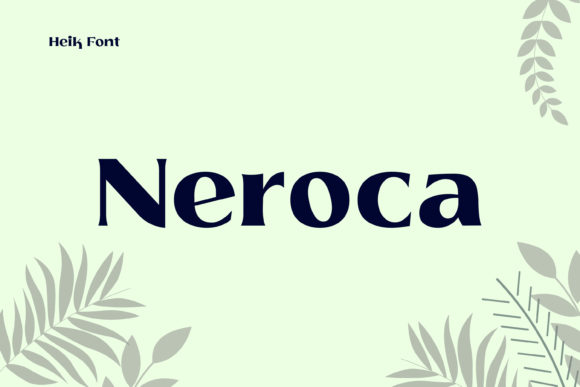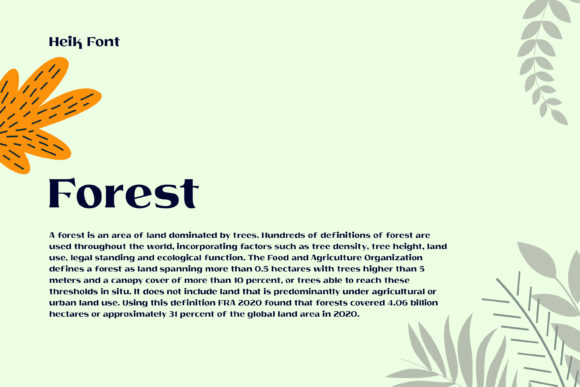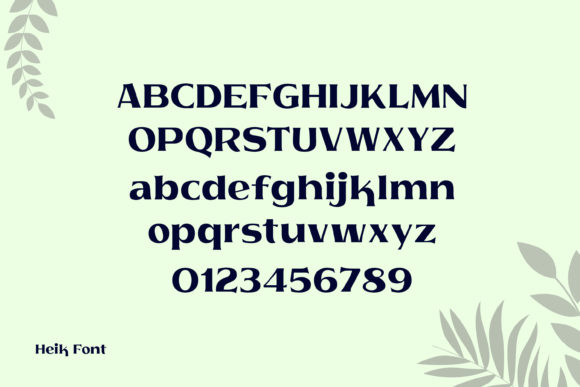
Introduction to Heik Font
Have you ever stared at a blank page, desperately searching for the perfect font to bring your creative project to life? For many designers, this is a familiar struggle. But what if you could unlock a font that not only captures attention but also adds a touch of sophistication to your work? Enter the Heik Font, a modern serif font that’s perfect for making a statement.
With its bold and stylish design, the Heik Font is ideal for a wide range of creative applications, from web designs and business cards to social media graphics and more. Whether you’re a seasoned designer or just starting out, this versatile font is a valuable addition to your design resource library. And the best part? It’s available for a free download, so you can start exploring its possibilities right away.
What sets the Heik Font apart is its high quality design, which features a transparent background that makes it easy to customize and integrate into your projects. So why settle for a generic font when you can elevate your work with the Heik Font? Discover the possibilities of this incredible design resource and take your creative projects to the next level.
Key Features of Heik Font
- Heik Font comes in a single size, but it’s highly scalable, making it suitable for a wide range of applications.
- Unique characteristics include its minimalist and modern design, making it a popular choice among designers.
- Easy to use and customize, thanks to its simple and clean design elements.
- Perfect for designers and artists looking for a high-quality design resource to enhance their creative projects.
Honest Review: Heik Font
As a designer, I’m always on the lookout for high-quality design resources that can elevate my creative projects. Recently, I stumbled upon the Heik Font, and I’m excited to share my honest review.
- ✨ Its transparent background allows for seamless integration into various design projects, giving me more creative freedom.
- ✨ The font’s sleek and modern design makes it perfect for creating a professional look in logos, branding, and typography-based projects.
- ⚠️ The font may not be suitable for very small text sizes, as it can become difficult to read.
- ⚠️ It’s essential to note that the Heik Font is not a font family, but a single font with limited styles.
Overall, I’m impressed with the Heik Font’s quality and versatility. It’s a great design resource for designers who want to create high-end, professional-looking designs without breaking the bank. While it may have some limitations, I believe it’s a valuable addition to any designer’s toolkit.
Tips for Getting the Most Out of Heik Font
To get the most out of Heik Font, consider the following tips: use the font in combination with other design elements to create a visually appealing design, experiment with different font sizes and styles to add depth and interest to your design, and use the font’s transparent background feature to create a seamless design.
Heik Font is a versatile design resource that can be used in a variety of creative projects, including branding, marketing materials, and digital products. The font’s high-quality design and transparent background feature make it an ideal choice for designers who want to create professional-looking designs quickly and easily.